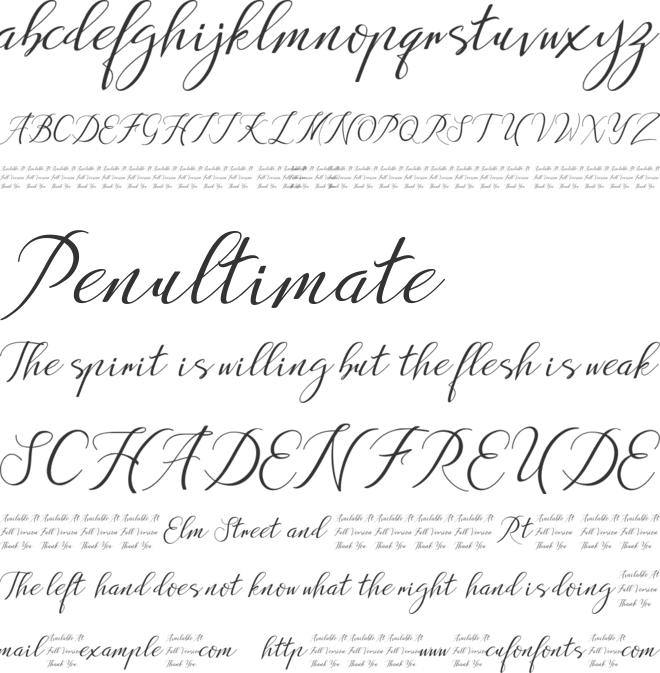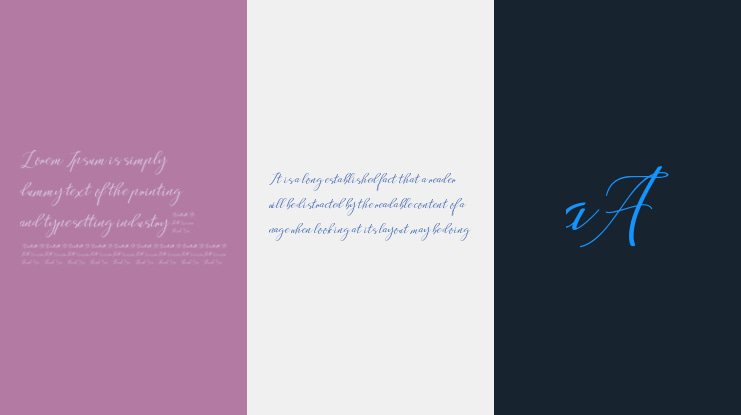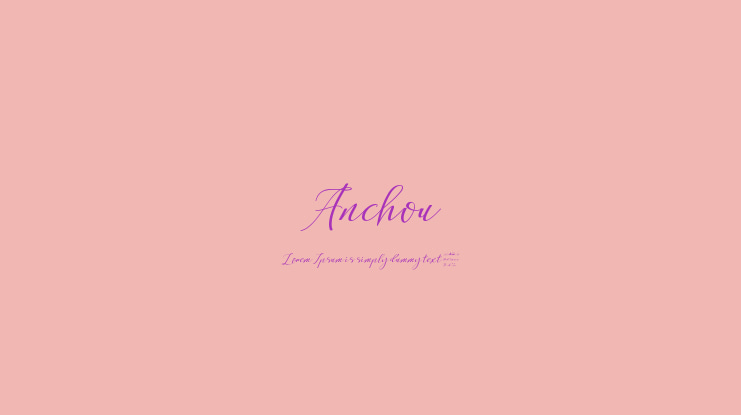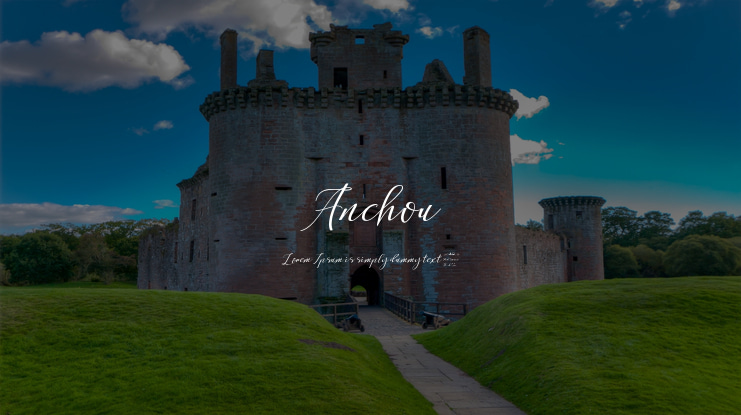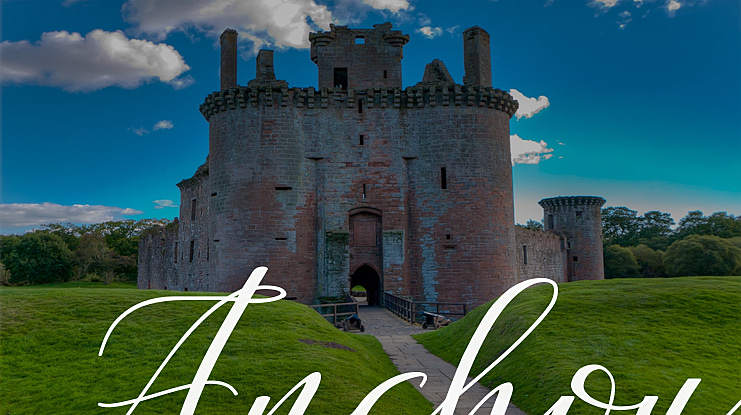
Anchou Font
Introducing,Anchou Is A Beautiful Handwriting, This Type Of Writing Is Irregular Between The Upper And Lower, And It Is A Smooth And Coarse Typeface, This Font Is Made To Meet All Types Of Desing And Printing, This Font Supports Language, It Is Suitable To make: banners, brochures, invitations, shirts, mugs, calendars, posters, and more, and it is expected that this font will be useful for all.
-Uppercase
-Lowercase
-Figures & Punctuation
-Ligatures
-Language Support